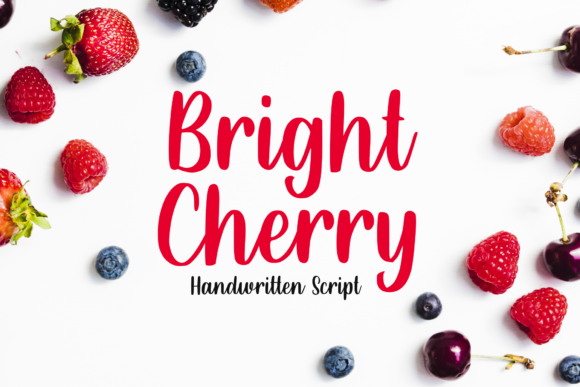
Unleash the captivating charm of Bright Cherry Font, a masterpiece crafted by Sibelumpagi Studio. This exquisite script font exudes a timeless elegance, seamlessly blending the allure of classic typography with the charm of authentic calligraphy.
With Bright Cherry, your designs will radiate an enchanting aura, capturing the hearts of your audience. Its meticulously designed characters, adorned with intricate details, evoke a sense of nostalgia and grace. The font's inherent versatility allows it to effortlessly adapt to a myriad of creative endeavors, from heartfelt wedding invitations to enchanting branding projects.
Immerse yourself in the boundless possibilities of Bright Cherry, and let your imagination run wild. Create breathtaking logos that command attention, design captivating social media posts that ignite engagement, and craft unforgettable invitations that set the tone for any special occasion.
Bright Cherry is your gateway to a world of visual delight. Its ability to effortlessly elevate any project to new heights makes it an indispensable tool for designers, artists, and creatives alike. Embrace the magic of Bright Cherry today and embark on a journey of artistic expression that will leave a lasting impression.